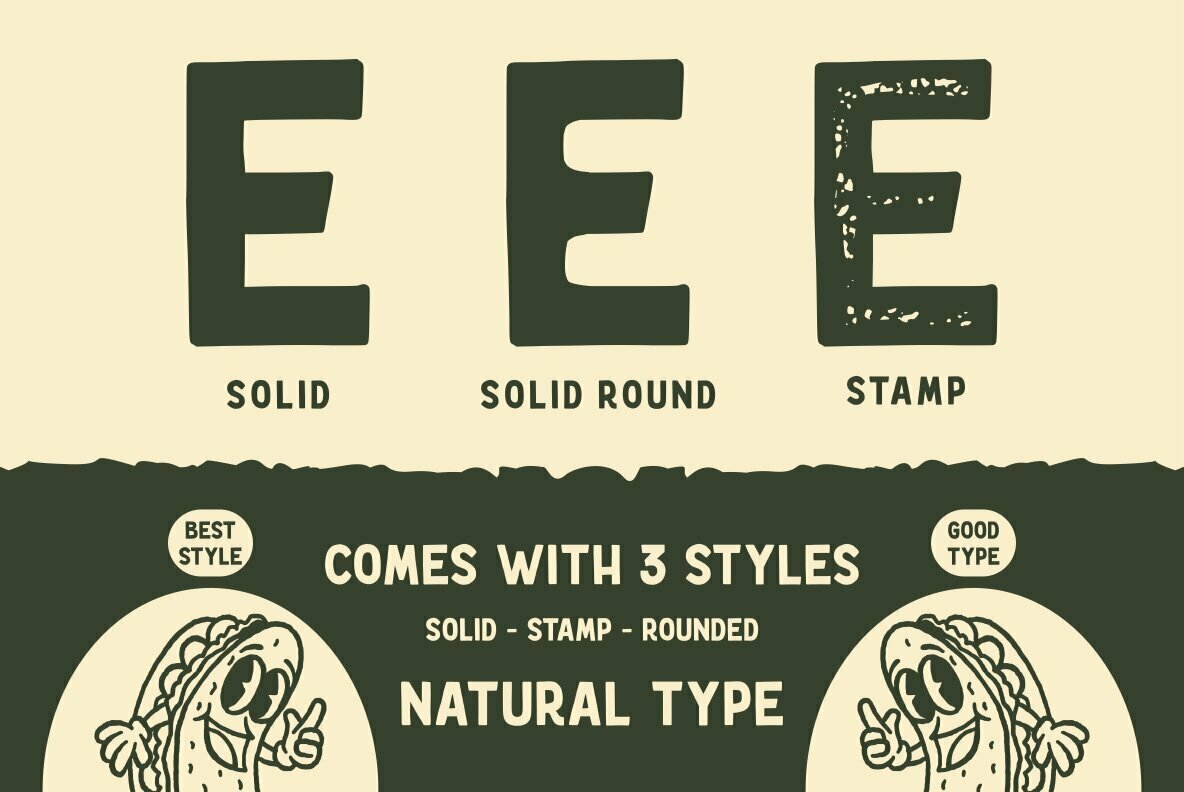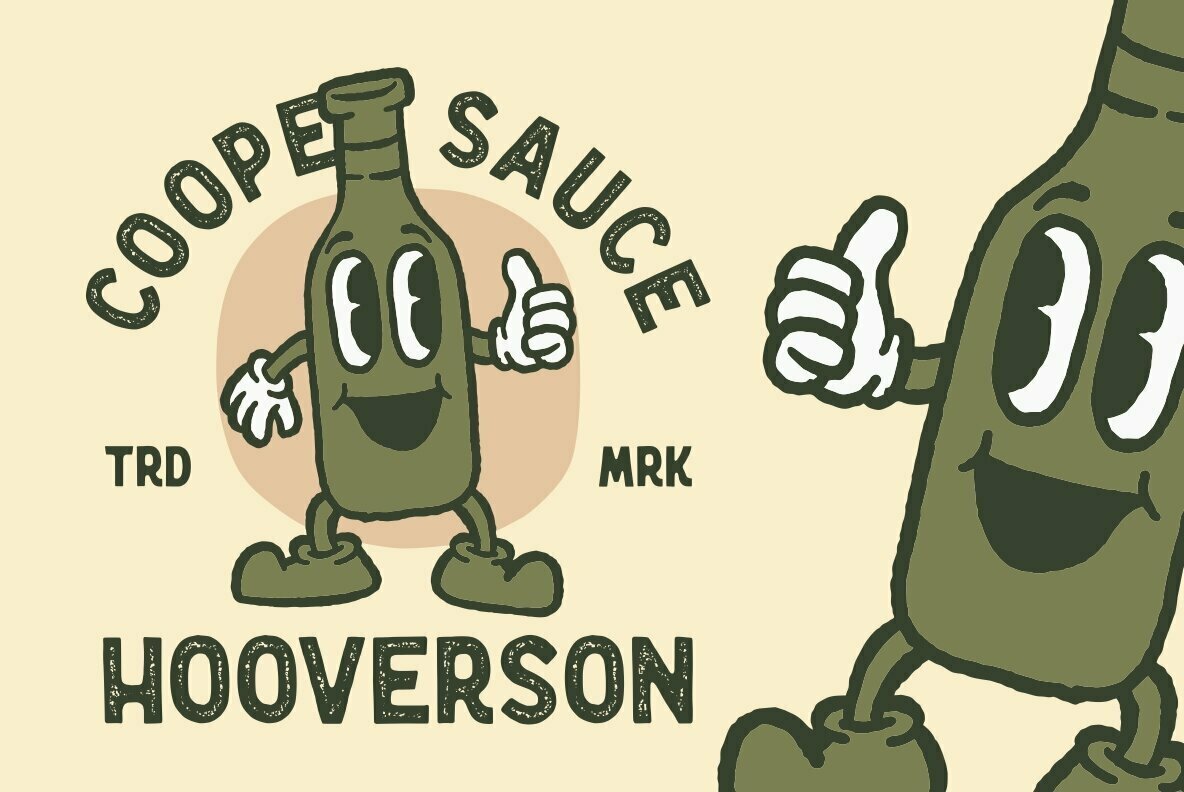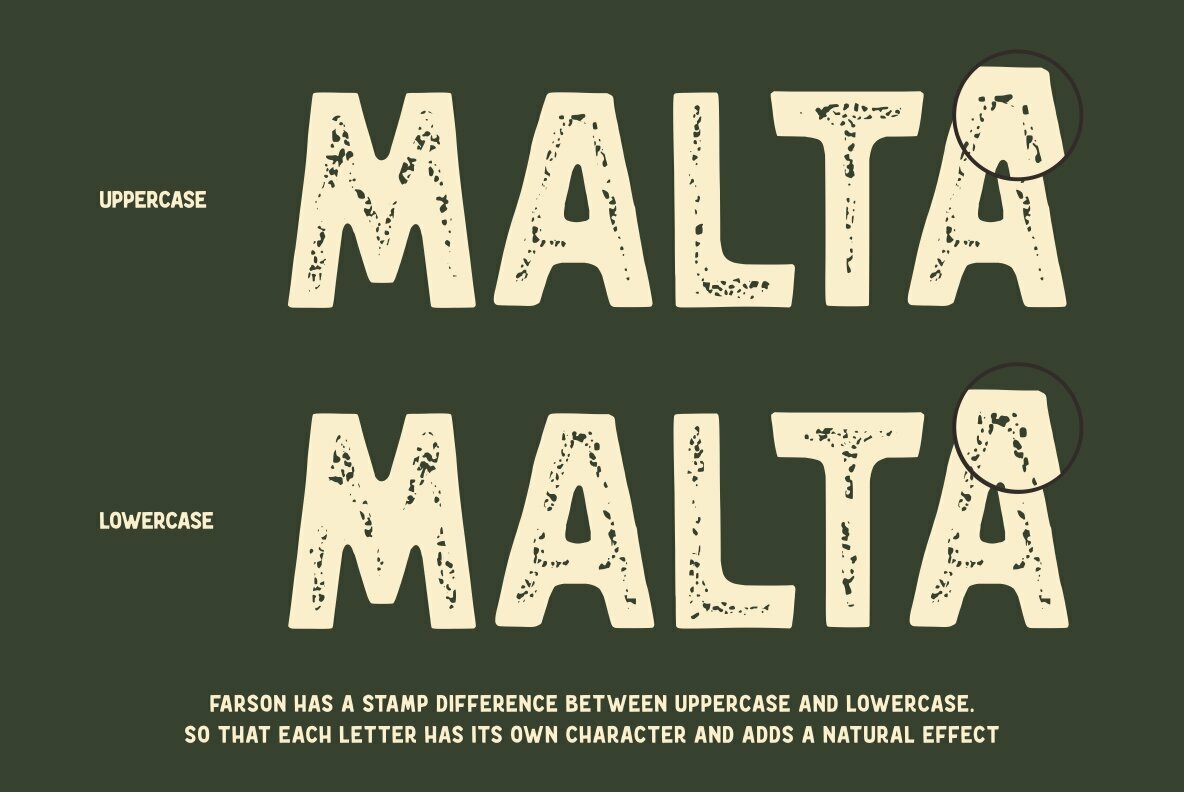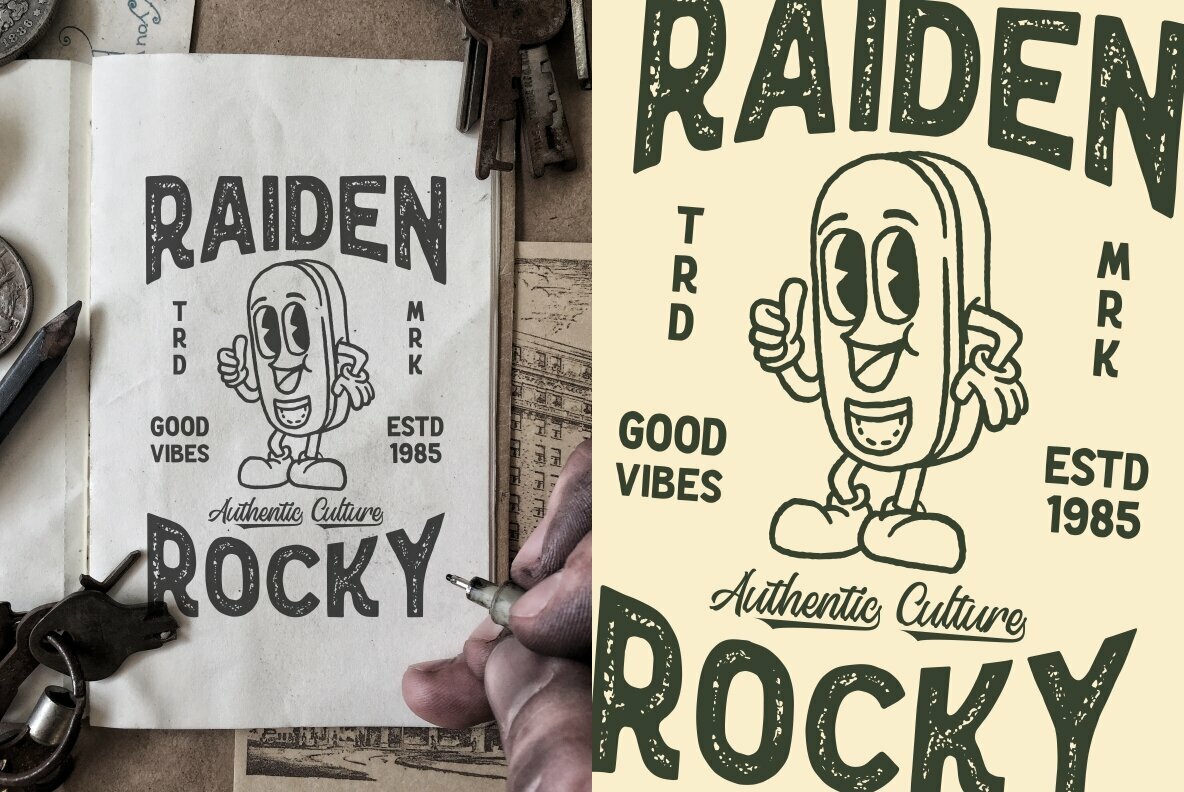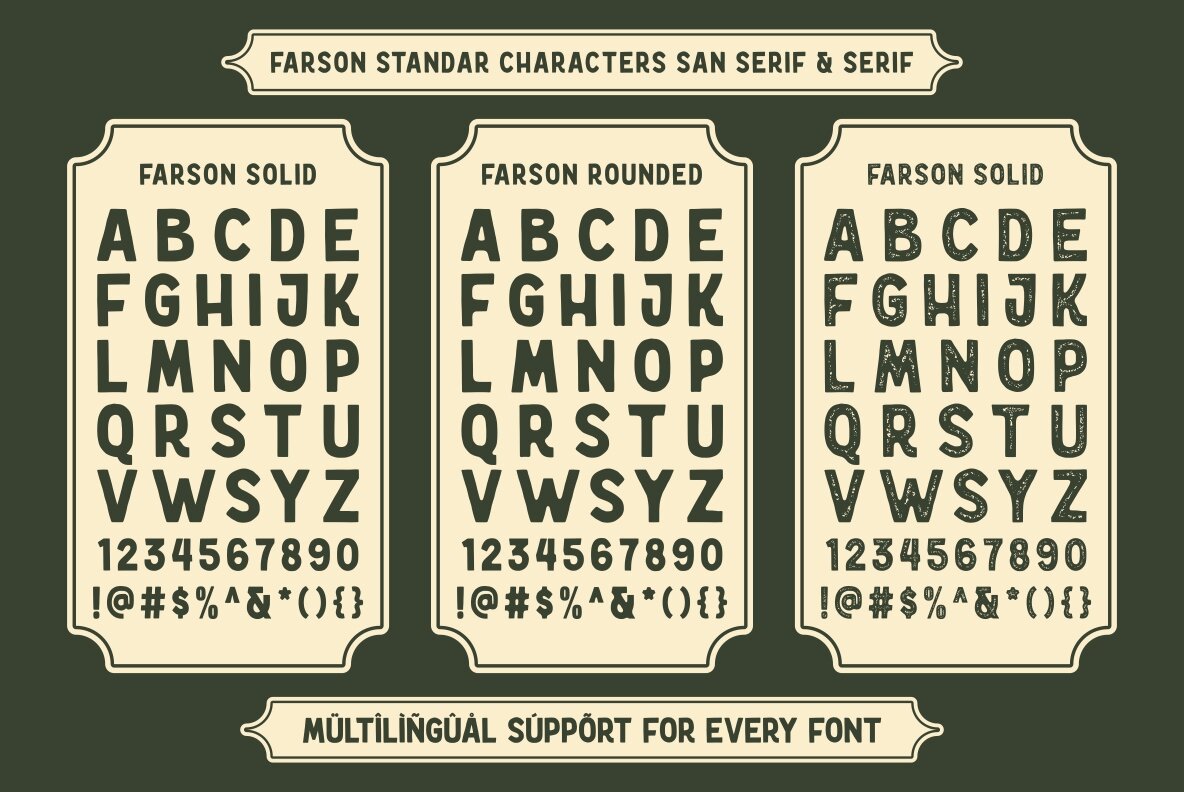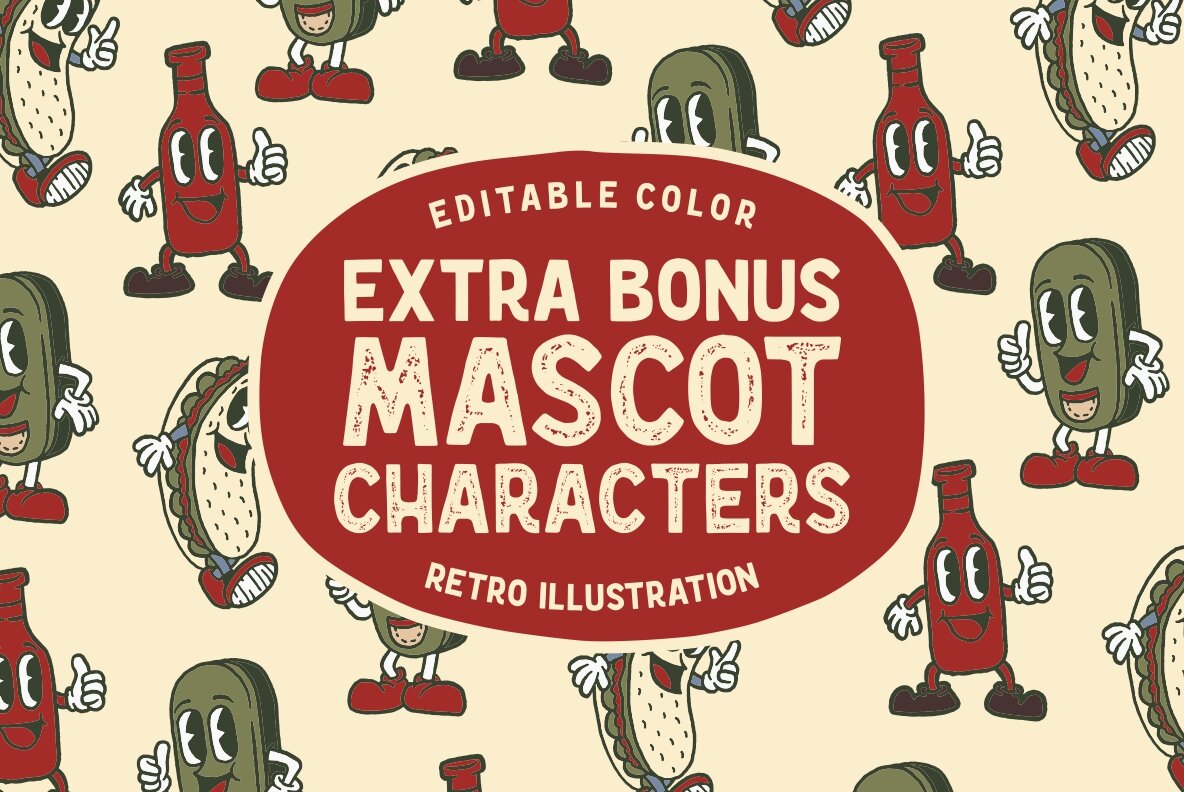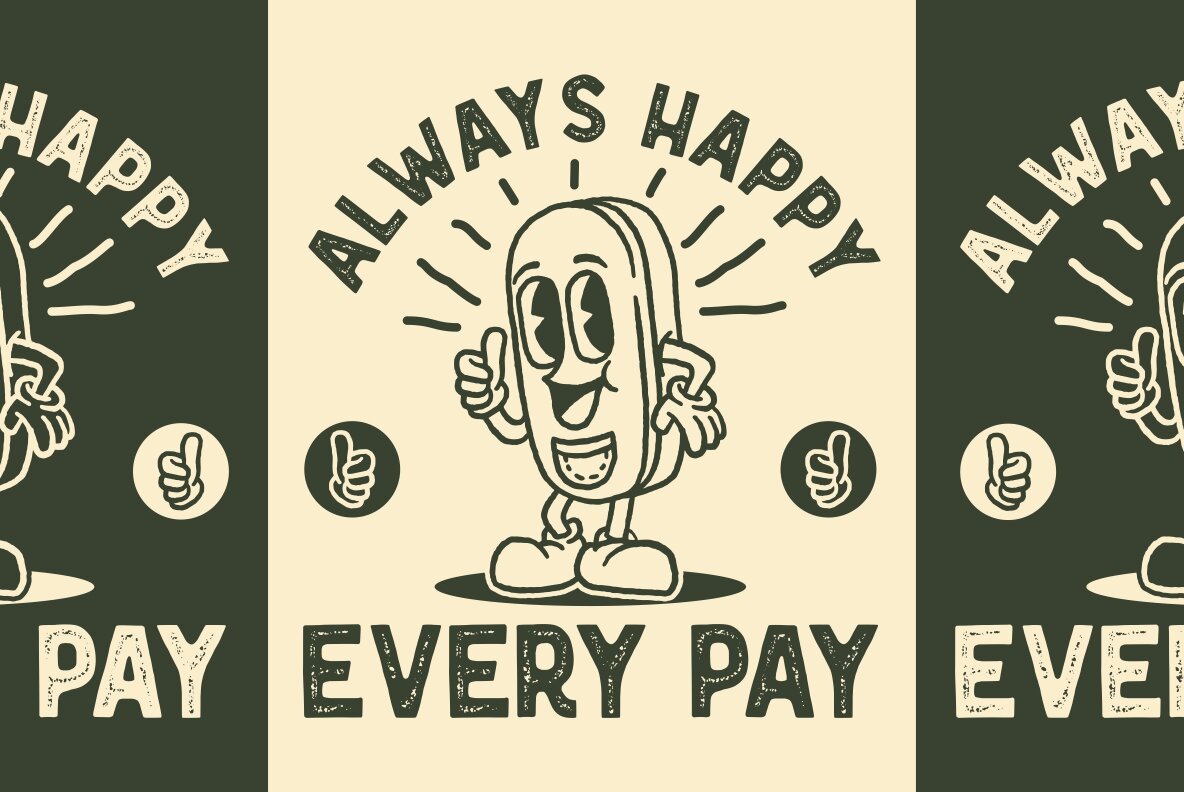
Farson Font
Farson emerges as a tribute to enduring vintage design, drawing inspiration from classic, hand-crafted typography. Ideal for those pursuing a vintage aesthetic, its design serves well in logo creation and branding projects. This typeface seamlessly integrates into diverse graphic design needs, including business cards, posters, t-shirts, and photography.Farson: A Nostalgic Vintage Typeface